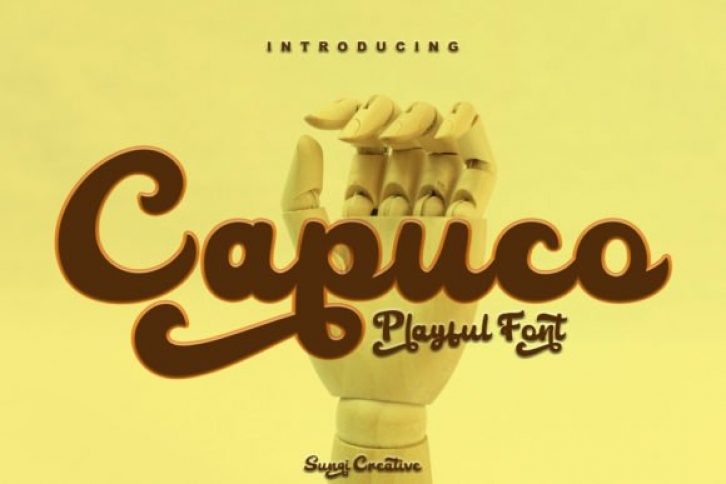
Capuco is a playful, thick lettered and vintage styled script font. Whether you’re using it for crafting, digital designing, presentations or greeting cards making, it’s perfect!